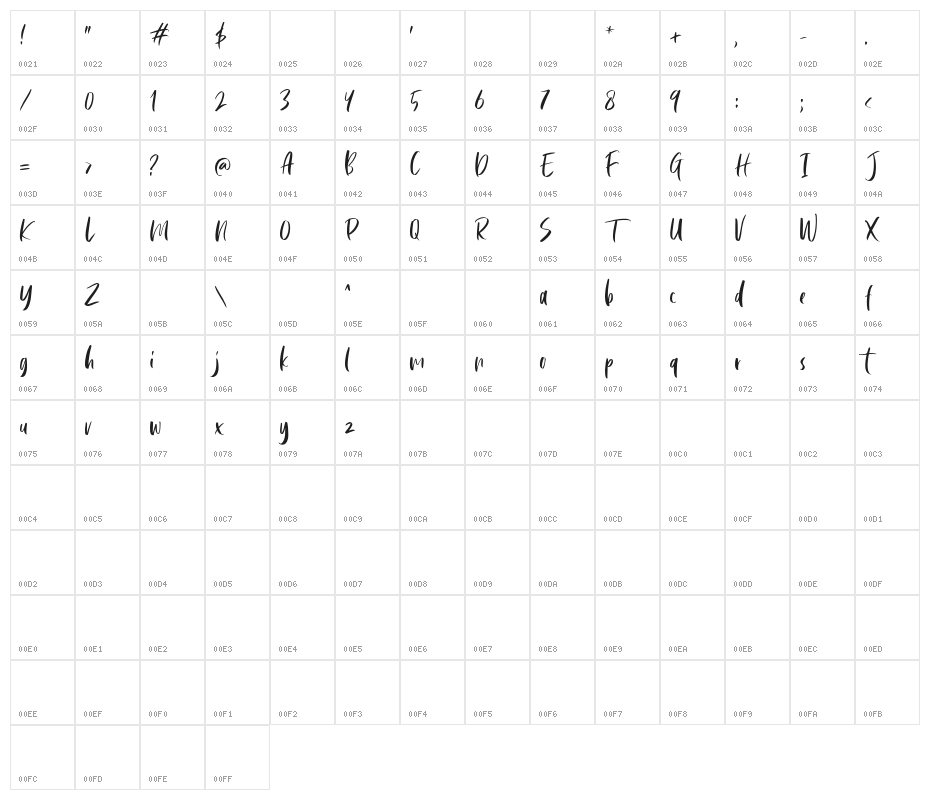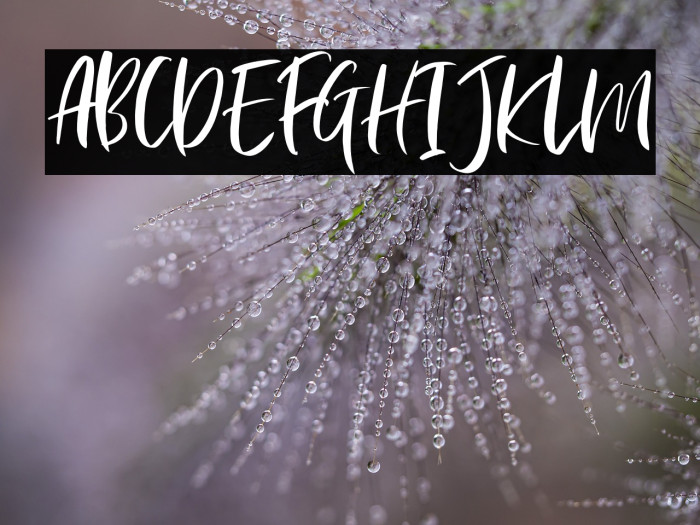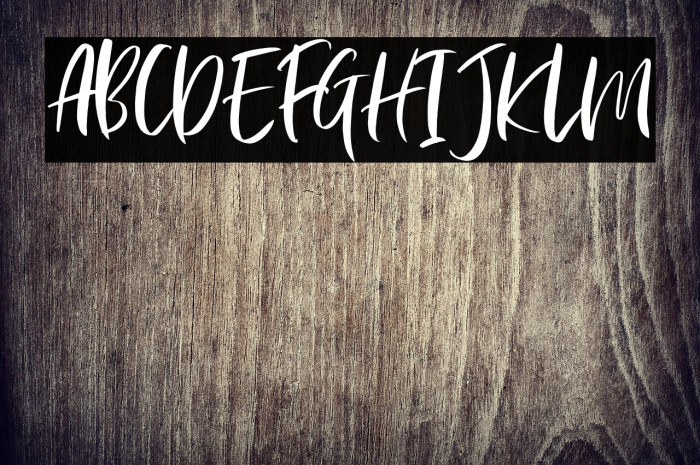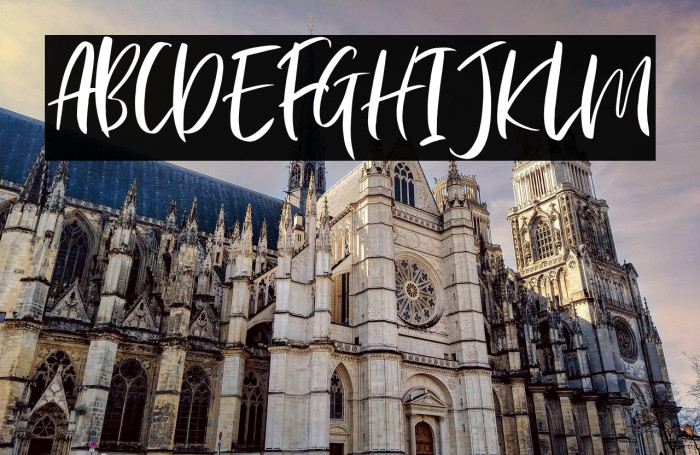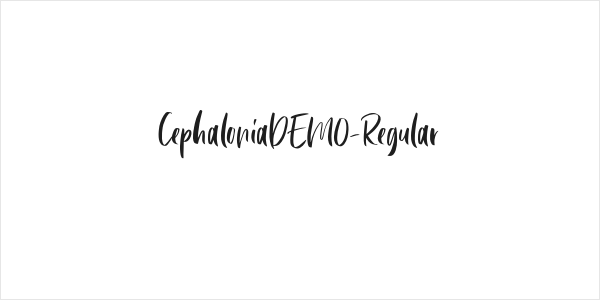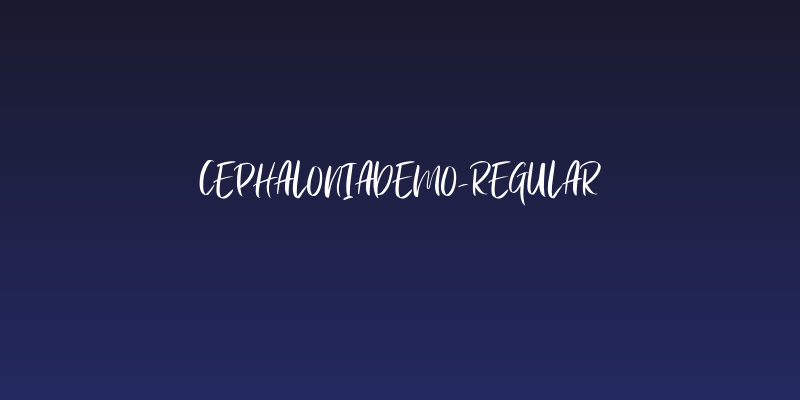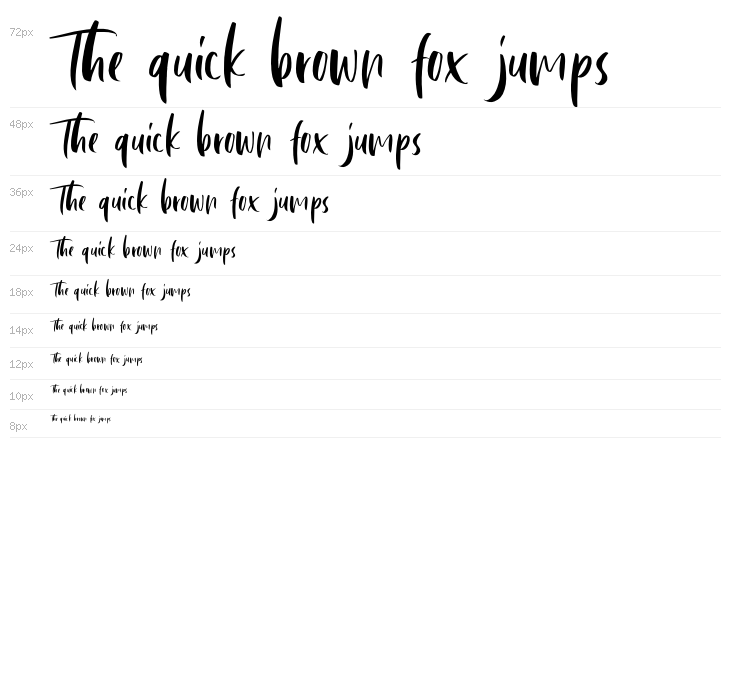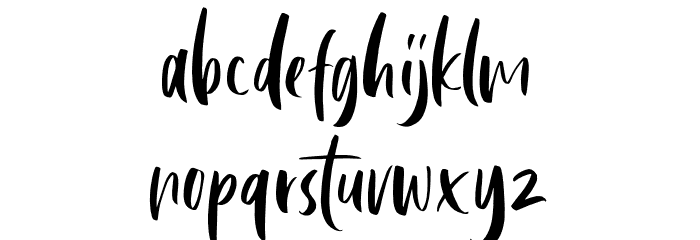
CephaloniaDEMO-Regular Font
CephaloniaDEMO-Regular Description
This font features a dynamic and expressive handwritten style, characterized by its fluid strokes and natural flow. The letters exhibit a playful yet elegant appearance, with varying stroke widths that add a sense of movement and energy. The uppercase letters are bold and prominent, while the lowercase letters maintain a consistent rhythm, enhancing readability. The numerals and special characters are crafted with the same attention to detail, ensuring a cohesive look across all text. This font's unique style makes it suitable for creative projects that require a personal touch.